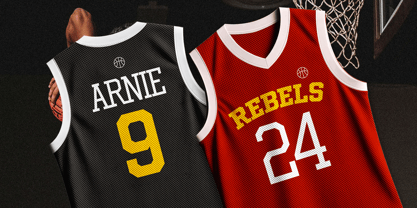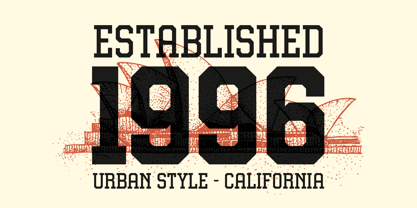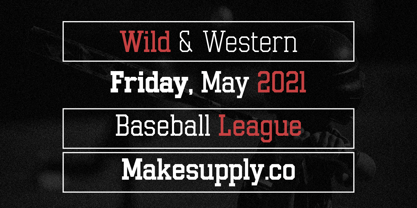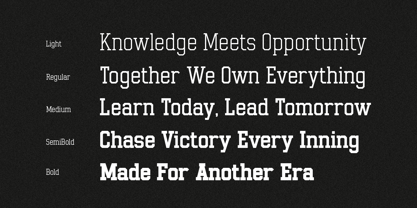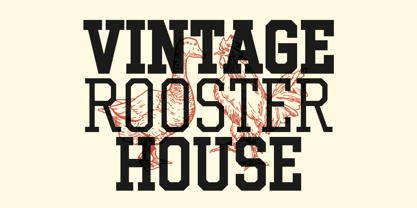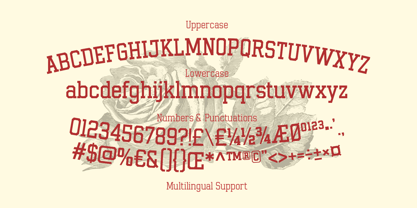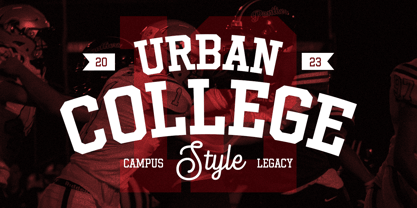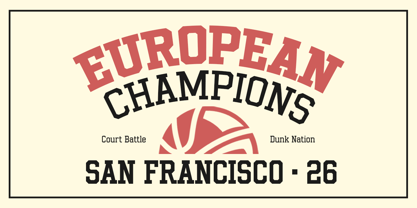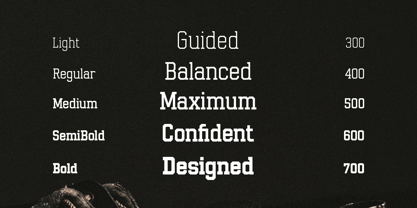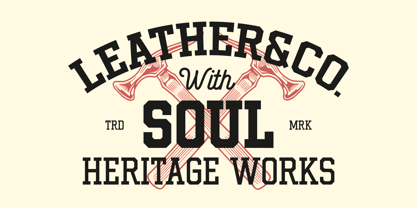
Gumbolt
Gumbolt is a simple and clean slab serif display font inspired by vintage sports, collegiate lettering, Western graphics, and classic American typography. Its bold slab serifs and subtle angular details give the letters a distinctive character while keeping the overall design straightforward and easy to use.
The family includes 5 weights, from Light to Bold, giving you flexibility for both strong headlines and supporting text. The heavier weights bring a classic athletic and varsity feel, while the lighter styles offer a cleaner and more refined look. Gumbolt works well for logos, apparel, posters, badges, labels, and branding.
With its simple construction and vintage character, Gumbolt fits a wide range of projects, from sports and college-inspired graphics to streetwear, outdoor designs, Western themes, barbershops, and packaging. It has enough personality to stand out without being overly decorative, making it an easy font to work with across different styles.
Fonts featured :
- Uppercase
- Lowercase
- Numbers
- Punctuation
- Symbols
- Stylistic alternates
- Multilingual support